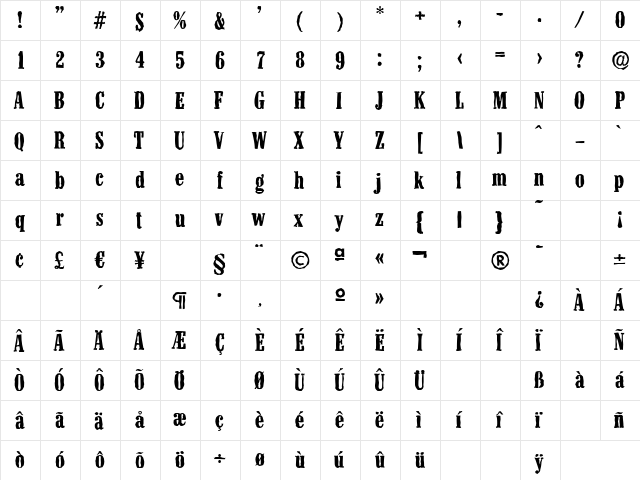
ColonelAntique Bold
Design Context for ColonelAntique Typeface
ColonelAntique has the warm character of retro typography — evoking diners, record sleeves, and the golden age of print advertising. Its bold stroke weight gives it real presence on the page.
Font Pairing: Combine ColonelAntique with a simple slab or neutral sans — period-accurate companions reinforce the vintage feel without competing for attention.
Pro Tip: Use ColonelAntique for headlines and pull quotes rather than body copy — its personality is best appreciated in short, focused bursts.